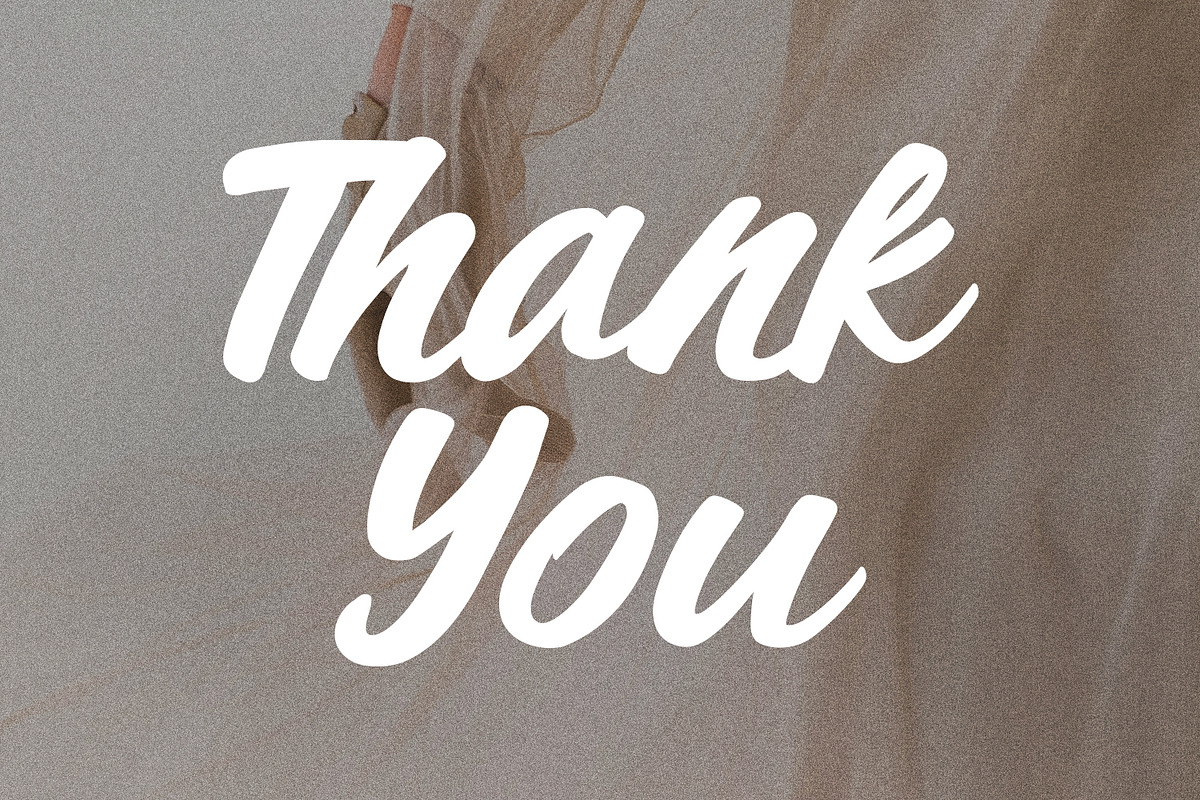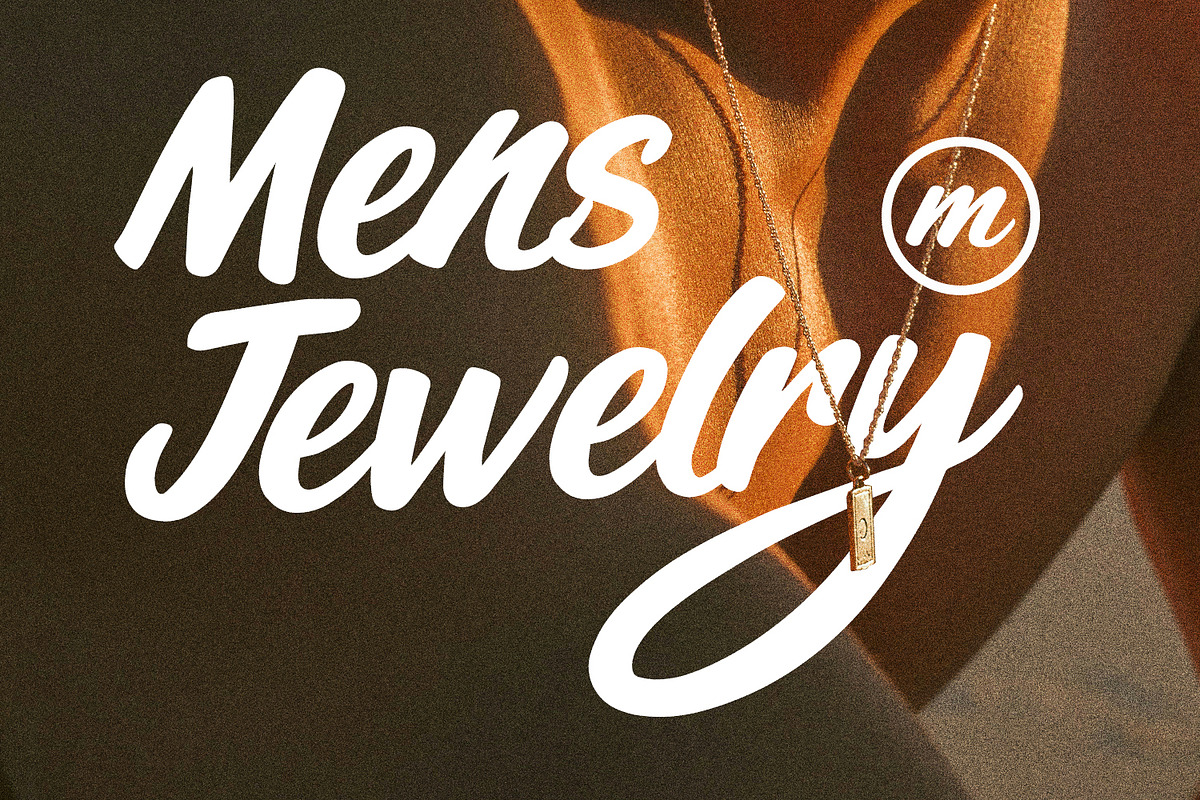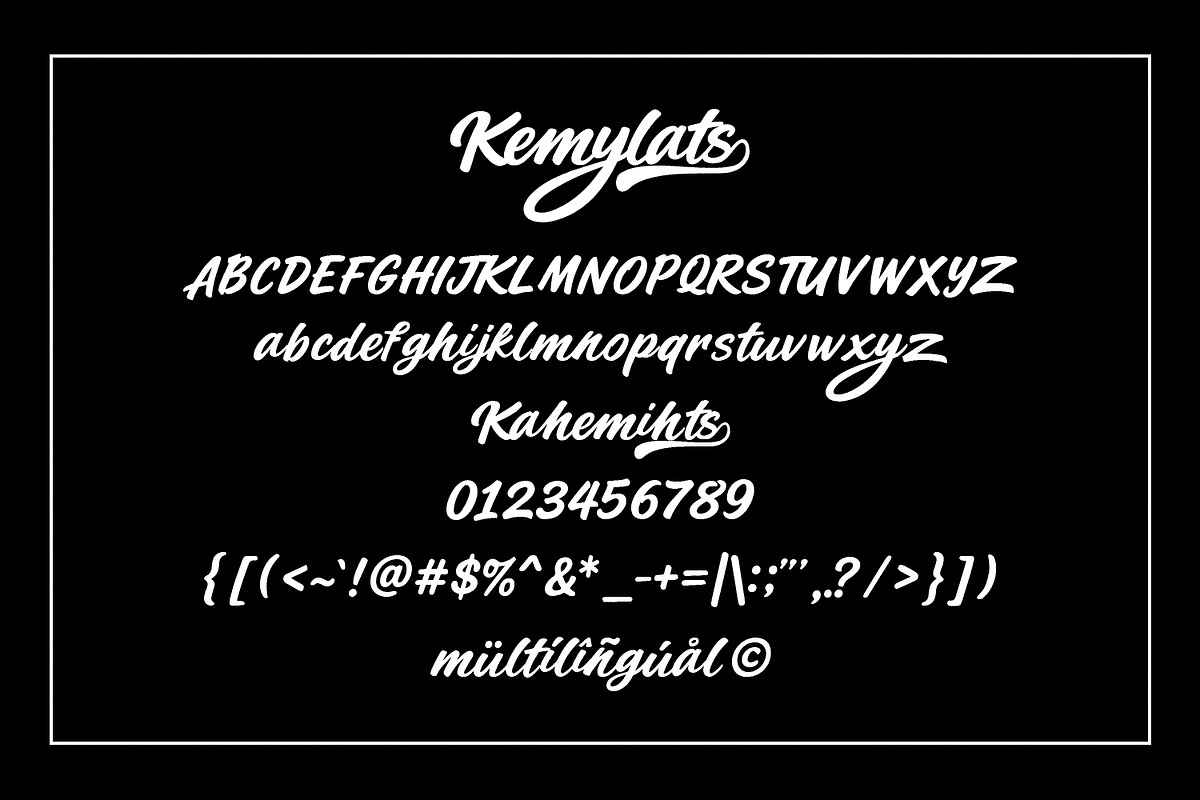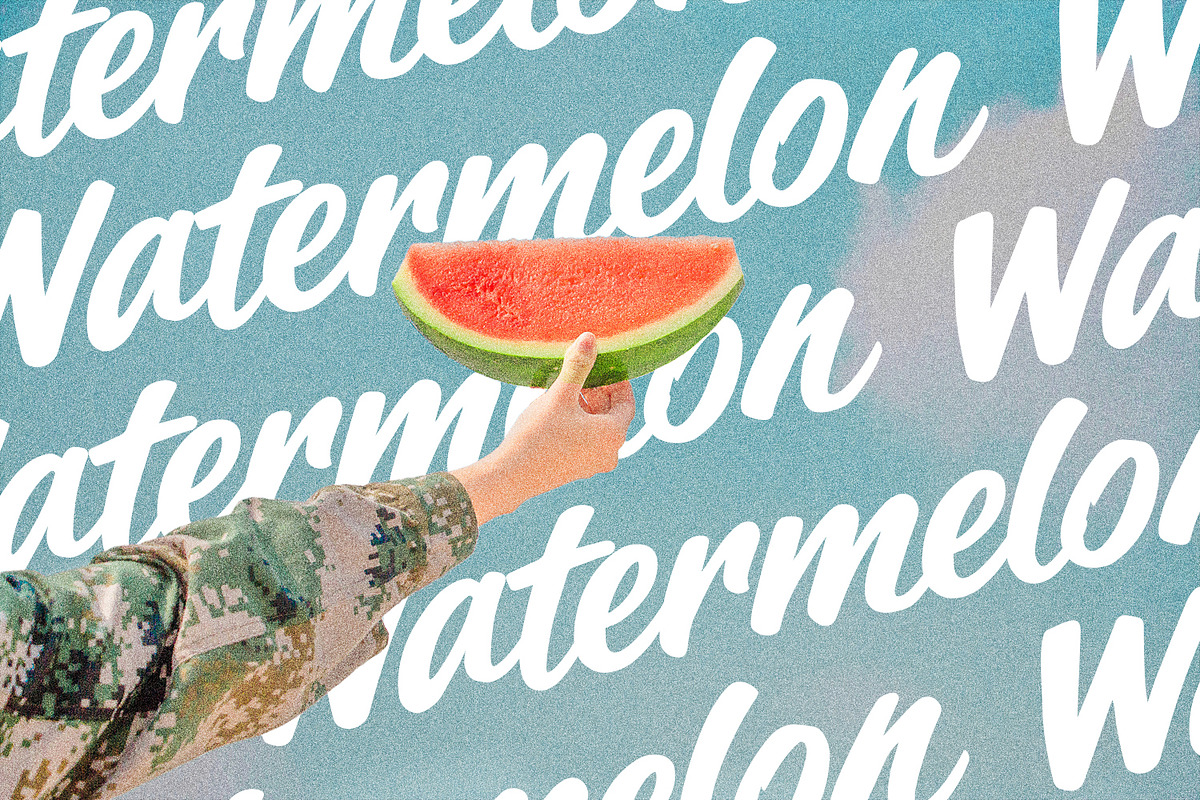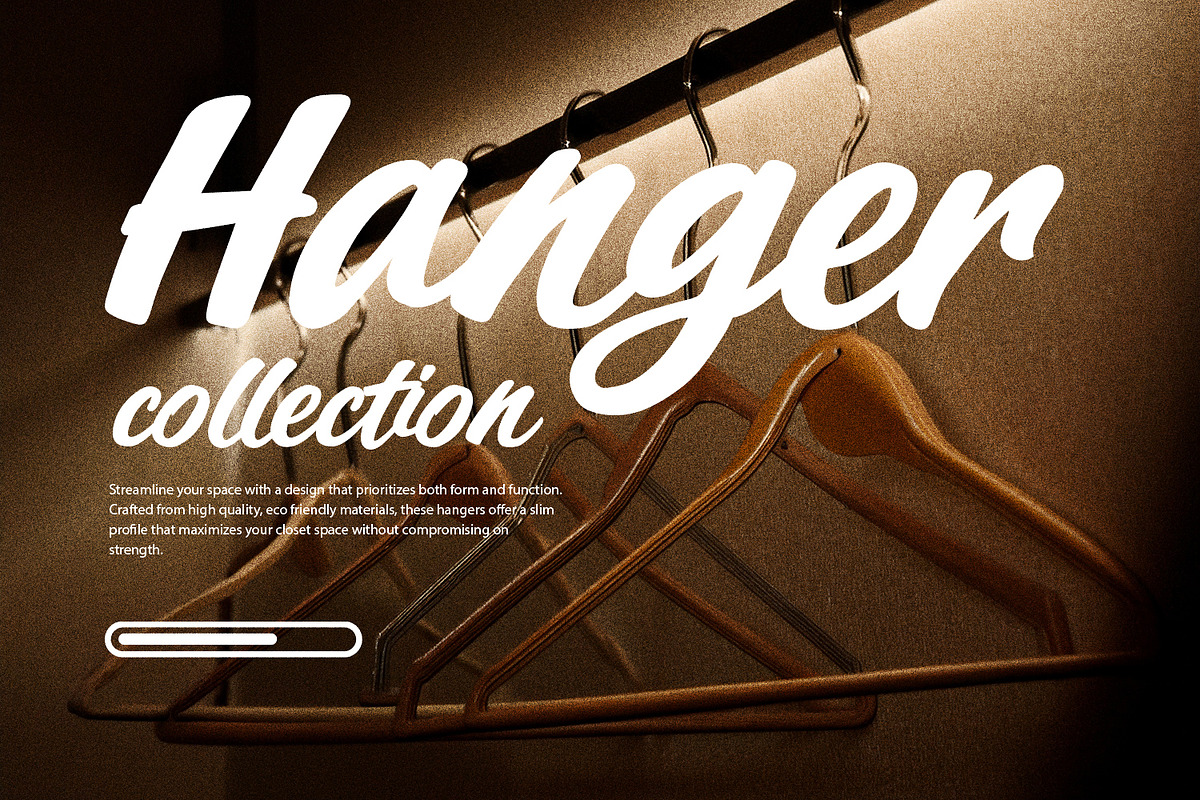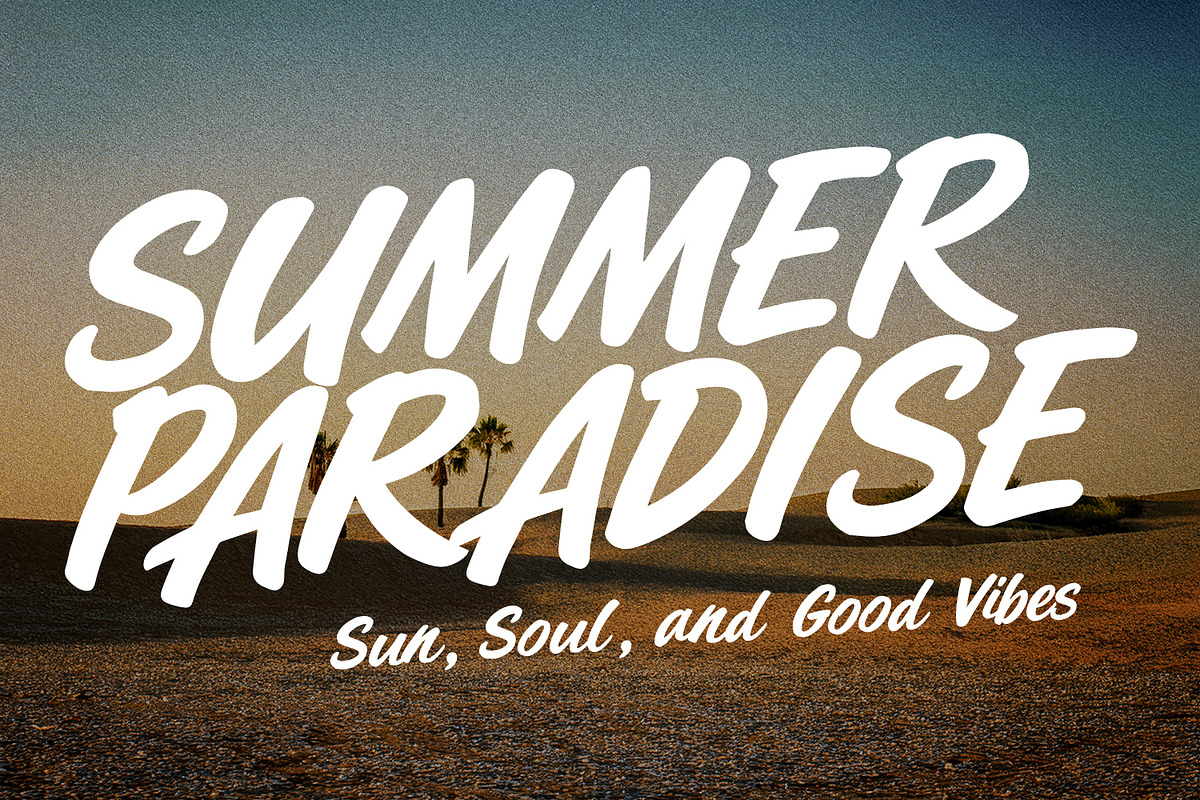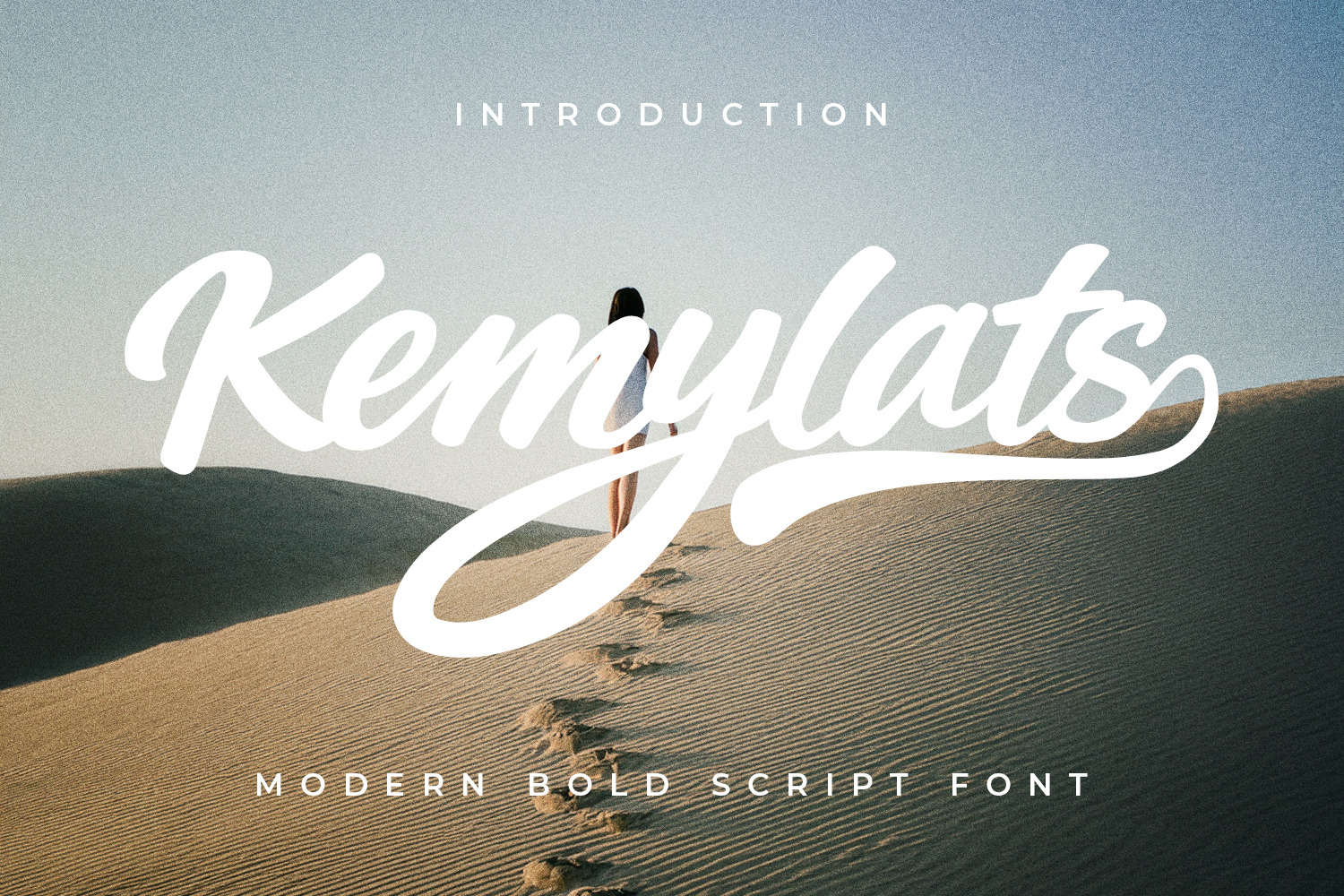
Kemylats Modern Bold Script Font
Discover the elegance of Kemylats, a modern bold script font designed to elevate your creative projects. With its smooth curves and dynamic style, Kemylats brings a touch of sophistication to logos, invitations, and packaging. This versatile font is perfect for branding, providing a professional and memorable look that stands out. Whether you’re creating social media graphics or designing exquisite stationary, Kemylats offers the flexibility you need. Its bold strokes and flowing connectors ensure excellent legibility, making it a reliable choice for both digital and physical media.
Unlock a world of possibilities with Kemylats' open-type features, including swashes, ligatures, and stylistic alternates. These unique variations allow you to customize your designs and add a unique flair to every word. This font's generous spacing and well-balanced forms create a harmonious rhythm, enhancing the visual appeal of your projects. Embrace the artistry of Kemylats and make a lasting impression with every design. From sophisticated event branding to contemporary editorial layouts, Kemylats is the perfect script font to bring your vision to life.
- Full character set (Uppercase & Lowercase)
- Numbers, Punctuation, and Symbols
- Ligature and alternate for a natural handwriting flow